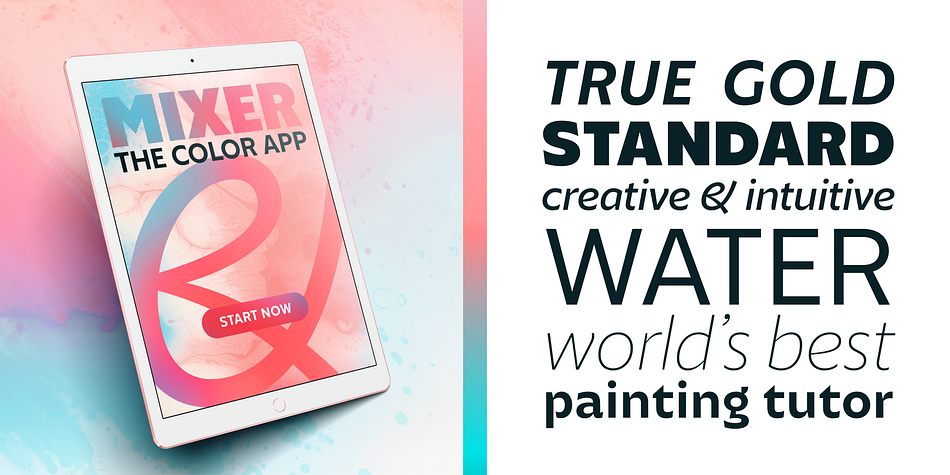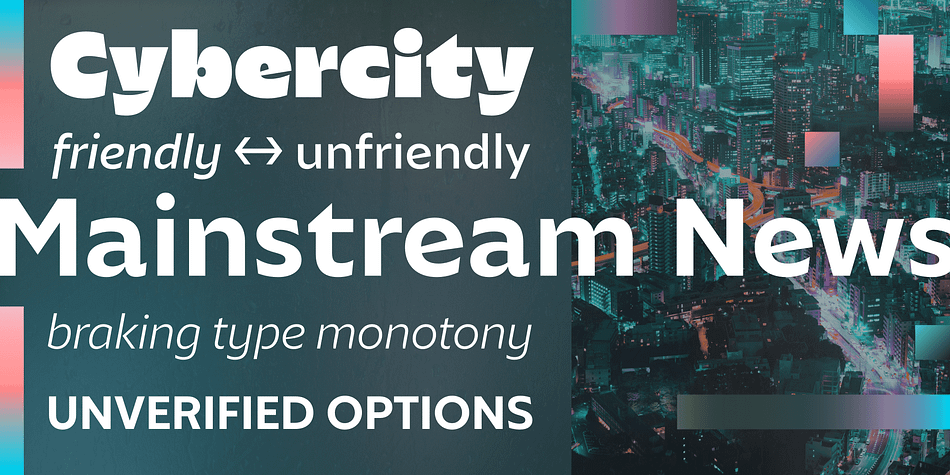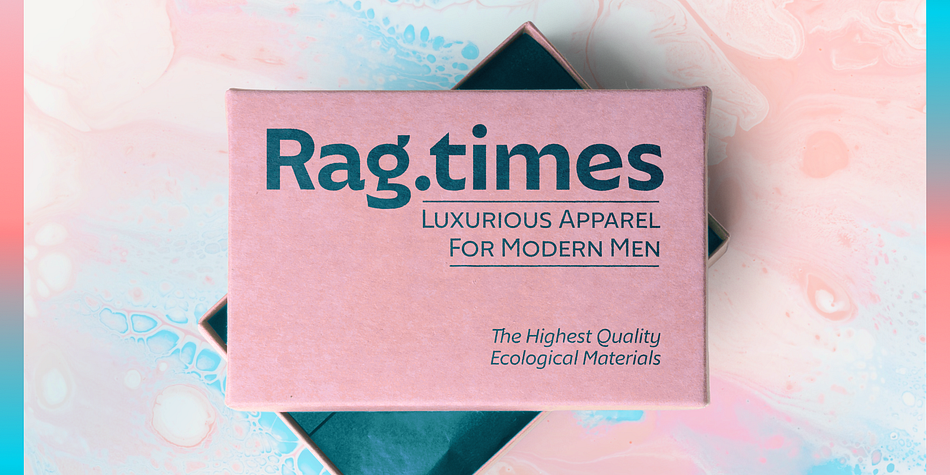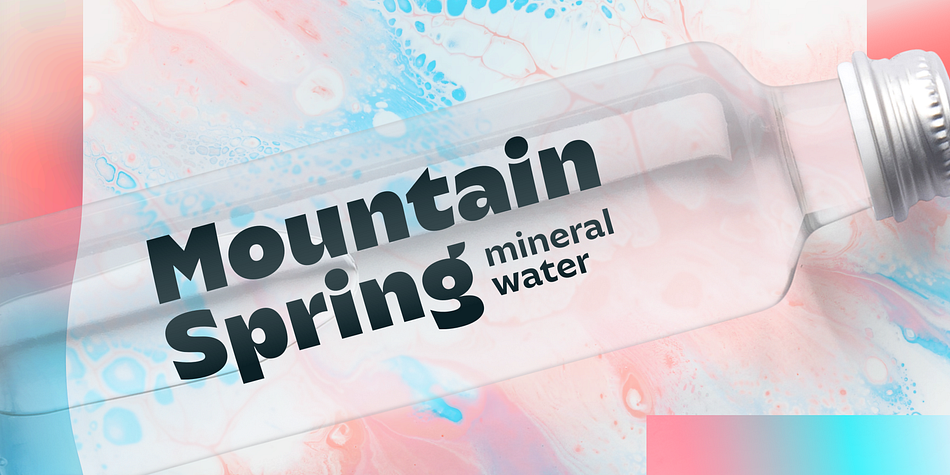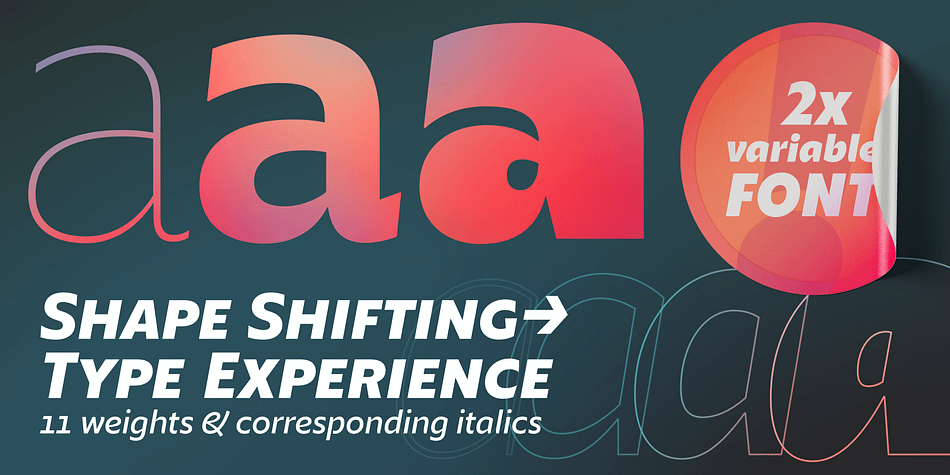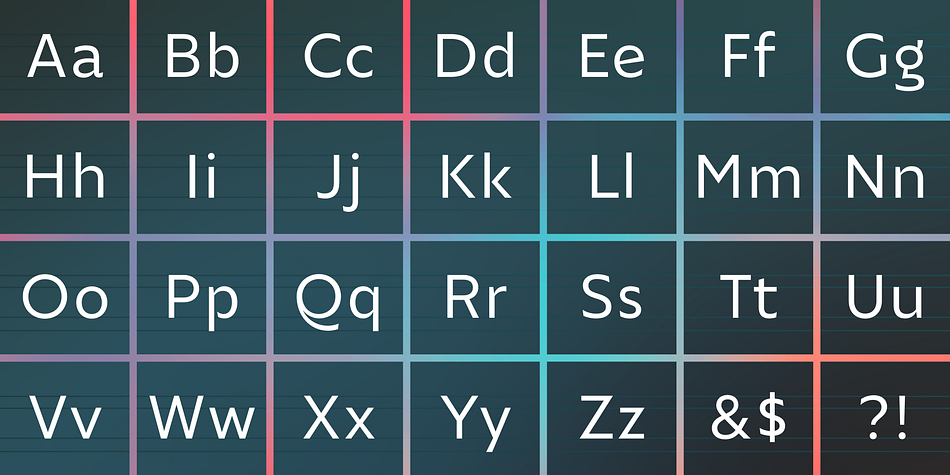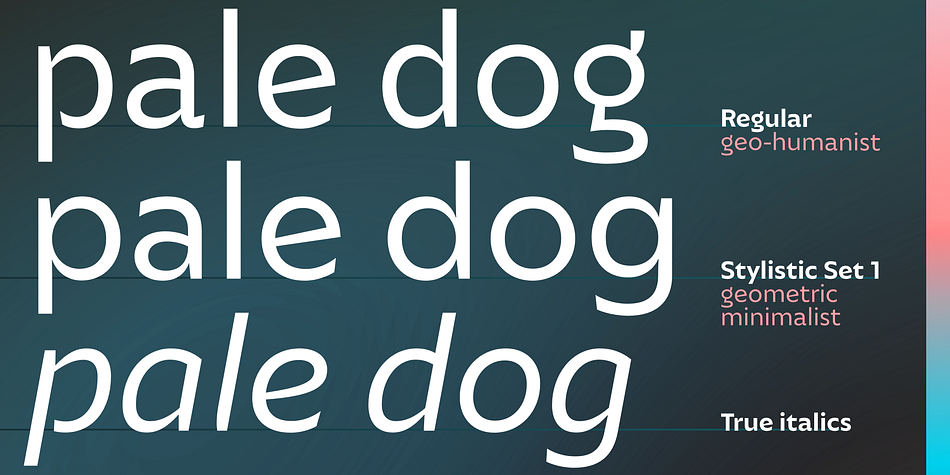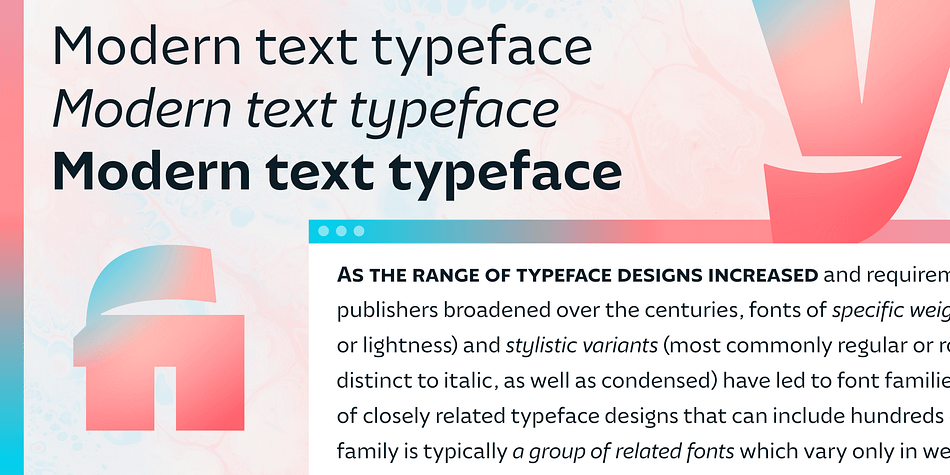
Glycerin
Designed by Roch Modrzejewski, Glycerin is a sans serif font family. This typeface has twenty-four styles and was published by ROHH.
Glycerin™ is a contemporary geo-humanist sans-serif typeface offering excellent legibility and powerful personality. It is a fully featured text type family, well proportioned, uniform in color. The family includes beautiful true italic styles.
The upright family features an alternate stylistic set (ss01) that changes the forms of certain lowercase letters (a, g, o, b, d, p, q, c, e) and creates a more geometric and minimalist effect. There are alternate forms for capital Q (ss02) and G (ss03) that help with achieving a more minimalist and technical mood, as well.
Glycerin has a very strong black and heavy styles - these have more organic and playful letterforms that induce unique character into every project.
The typeface introduces advanced typographic OpenType features, such as stylistic alternates, small capitals, titling alternates, case sensitive forms, standard and discretionary ligatures, contextual alternates, lining, old style, tabular and small cap figures, slashed zero, fractions, superscript and subscript, ordinals, currencies and symbols.
The complete family consists of 22 styles - 11 weights with corresponding true italics as well as 2 variable fonts. It supports extended latin languages.
Glycerin is a text sibling to the very modern, high-contrast display typeface Gigafly™.